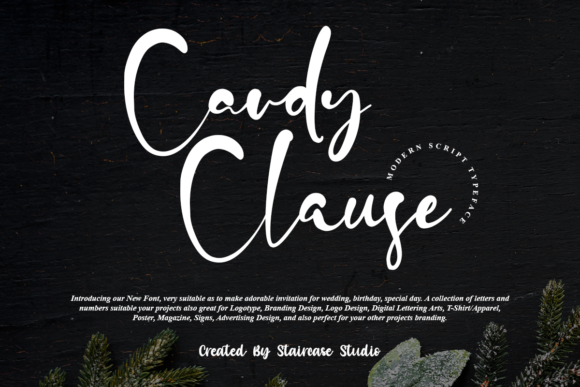
The Sweet Spot in Design: Discovering the Magic of Candy Clause Font
Who hasn’t been inspired by a beautifully crafted logo or typography that makes you stop and smile? For designers, those ‘aha’ moments are what make all the hard work worth it. And for me, it was the moment I stumbled upon the Candy Clause Font that sparked a creative fire within me.
This lovely and timeless handwritten font is more than just a pretty face – it’s a powerful tool for designers looking to add a touch of personality to their work. With its unique and beautiful touch, the Candy Clause Font is perfect for creating eye-catching logos, branding, and quotes that leave a lasting impression. Whether you’re a seasoned pro or just starting out, this font is sure to be a valuable addition to your design toolkit.
Candy Clause Font Key Features
- Font Family: Candy Clause Font is a unique, hand-drawn font designed to evoke the spirit of Christmas.
- Character Set: Includes a wide range of characters, including uppercase and lowercase letters, numbers, and punctuation marks.
- Unique Characteristics: The font features intricate details, such as swashes and flourishes, that add a touch of elegance and whimsy to designs.
Candy Clause Font Review
As a designer, I was excited to dive into the Candy Clause Font, hoping to find a unique and playful addition to my holiday typography arsenal. Overall, I found it to be a mixed bag, with some redeeming qualities that are worth noting.
- Playful and whimsical feel, perfect for festive designs
- Wide range of characters, including ornaments and special symbols
- Good for headings and titles, adding a touch of holiday cheer
- Not ideal for body text, as it can be difficult to read in smaller sizes
- Lack of consistency in character design, with some appearing more polished than others
- Not as versatile as other fonts, limited use in non-holiday contexts
Overall, I’d say the Candy Clause Font is a fun addition to any holiday design project, but not a go-to choice for everyday use. Its playful feel and wide range of characters make it a great choice for headings and titles, but it falls short in terms of readability and versatility. If you’re looking for a fun and festive font to add some holiday cheer to your designs, the Candy Clause Font is worth checking out. Just don’t expect it to be a workhorse font that can handle a lot of heavy lifting.
Some tips for getting the most out of the Candy Clause Font include using it for festive and holiday-themed designs, pairing it with bold and bright colors, and experimenting with different font sizes and styles.
Common use cases for the Candy Clause Font include creating invitations, greeting cards, and social media graphics for holidays and special events.